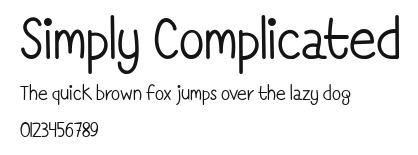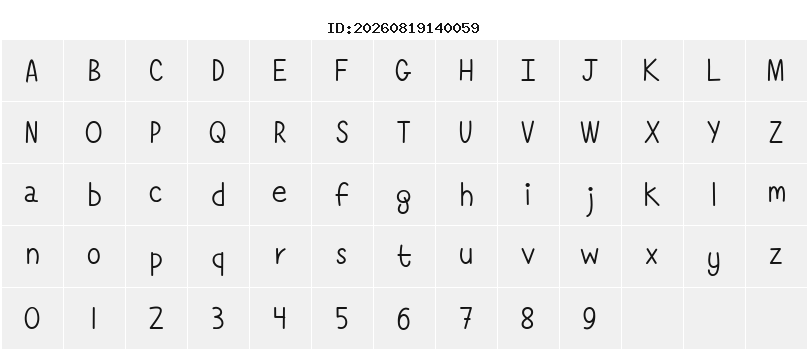
• Font Name: Simply Complicated
• Designer: Misti's Fonts (Misti Hammers)
About Simply Complicated.ttf
Simply Complicated.ttf is a modern, elegant sans-serif font designed for ultimate readability and visual harmony. Perfect for branding, headlines, web design, and print materials.